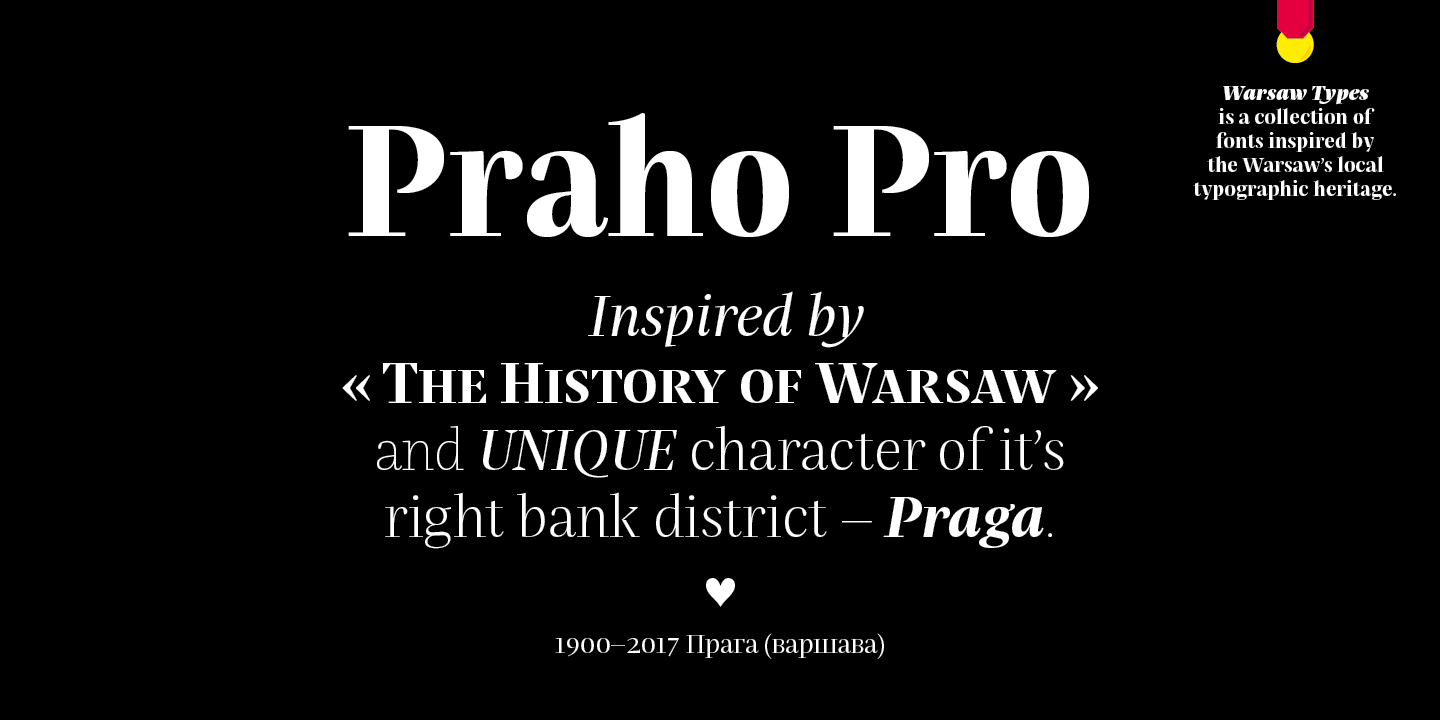
Praho Pro Font is perfect for creative agency branding, contemporary art gallery signage, modern magazine layouts, innovative tech startup identities, trendy fashion boutique logos, cutting-edge design portfolios, progressive cultural event materials, and forward-thinking brand communications.
What makes Praho Pro Font truly exciting is its sophisticated fusion of artistic expression and commercial functionality that creates an atmosphere of creative intelligence and professional innovation. This exceptional typeface features distinctive geometric letterforms with subtle artistic flourishes that convey both creative vision and business acumen, making it the ideal choice for brands seeking to establish themselves as industry leaders who value both aesthetic excellence and strategic thinking.
The Praho Pro Font family encompasses thin, light, regular, medium, bold, and black weights, complemented by matching italics and extended character sets with multilingual support, providing designers with comprehensive typographic tools for creating globally-minded creative brand experiences and sophisticated visual communications.
Creative professionals and innovative businesses will discover that Praho Pro Font Free Download delivers the artistic credibility and commercial appeal needed to attract discerning clients and creative collaborators. This versatile typeface excels in both intimate branding applications and large-scale environmental graphics, maintaining its sophisticated character across all creative contexts.
The font's precision-crafted details reflect meticulous attention to both aesthetic innovation and practical functionality, with optimized spacing and proportions that ensure exceptional performance across all media platforms. From portfolio presentations to exhibition signage, this contemporary typeface maintains its creative authority while providing the reliability required for professional applications. Creative industries appreciate how this font effortlessly communicates innovation, sophistication, and distinguished American creative design excellence.